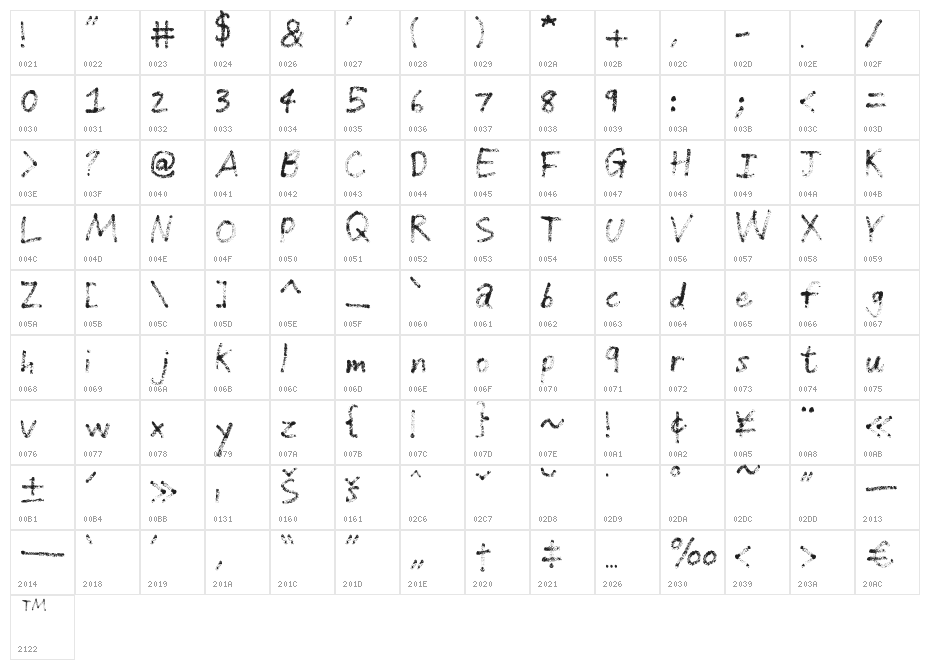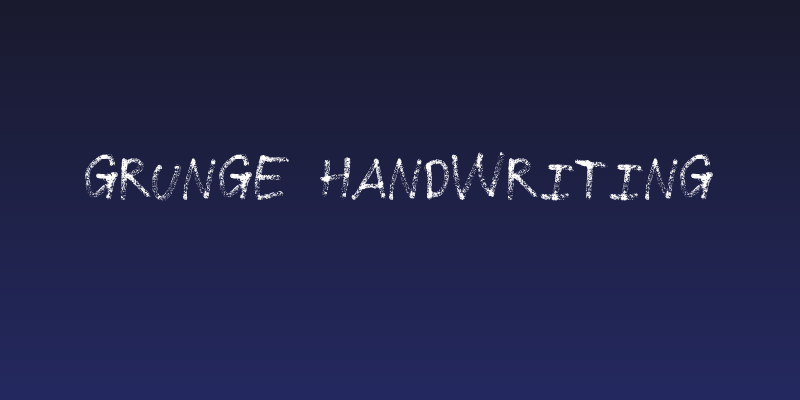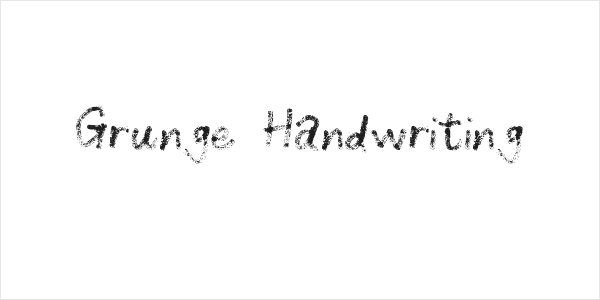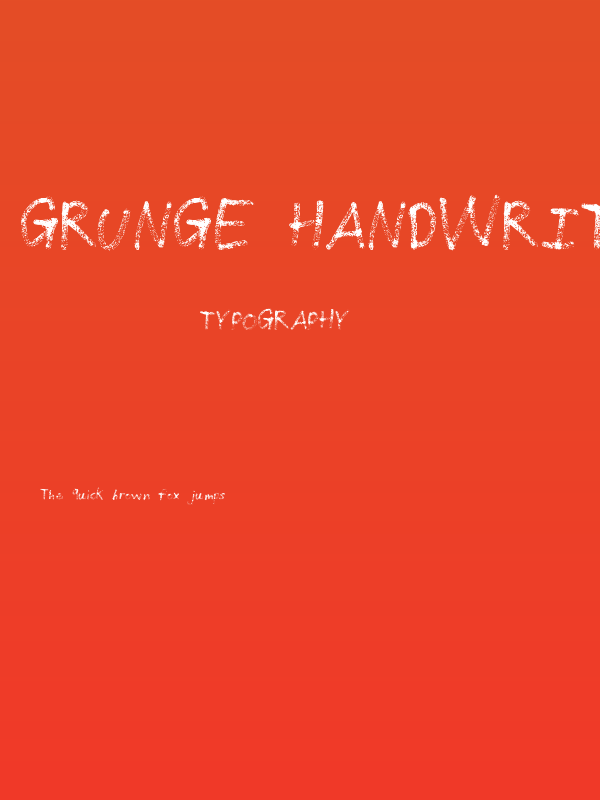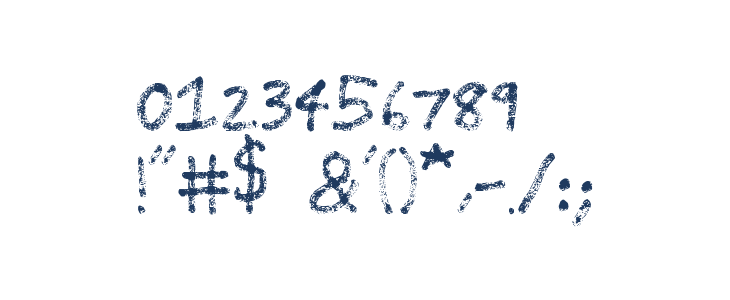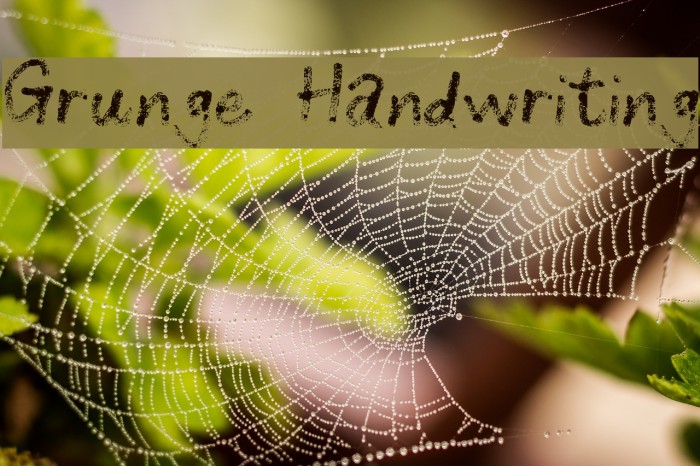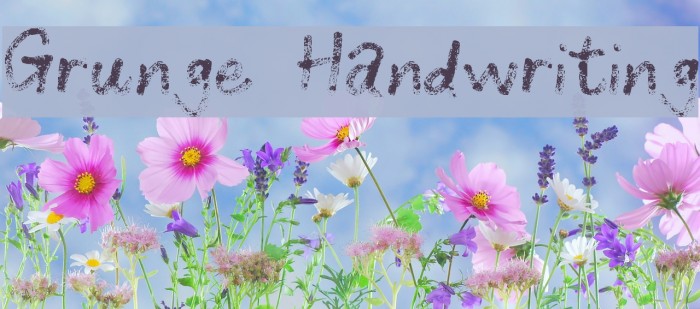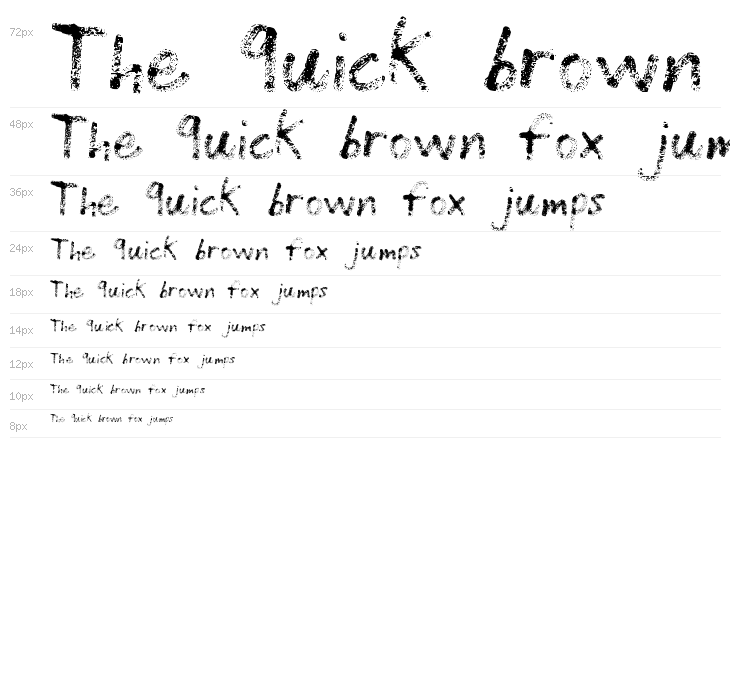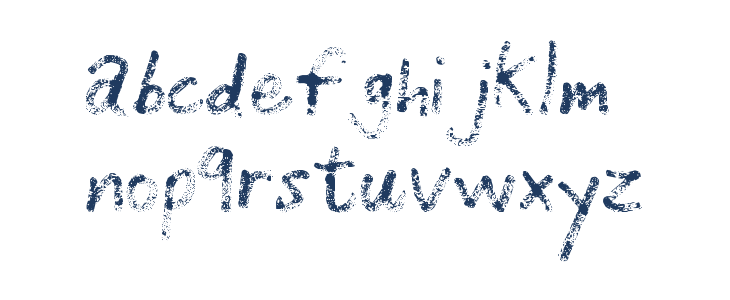
Grunge Handwriting Font
Grunge Handwriting Description
This font features a distinctive grunge style with a handwritten appearance, characterized by rough, textured edges that give it a distressed look. The letters are uneven and irregular, adding to the authentic, raw aesthetic. The uppercase and lowercase letters maintain a consistent style, with a playful and informal vibe. Numbers and special characters follow the same design, ensuring a cohesive look across all elements. This font is ideal for projects that require a touch of edginess and personality, making it perfect for creative and artistic endeavors.
| Overall Style | Grunge, Artistic |
| Proposed Projects | Ideal for album covers, posters, streetwear branding, and artistic projects requiring a raw, edgy look. |